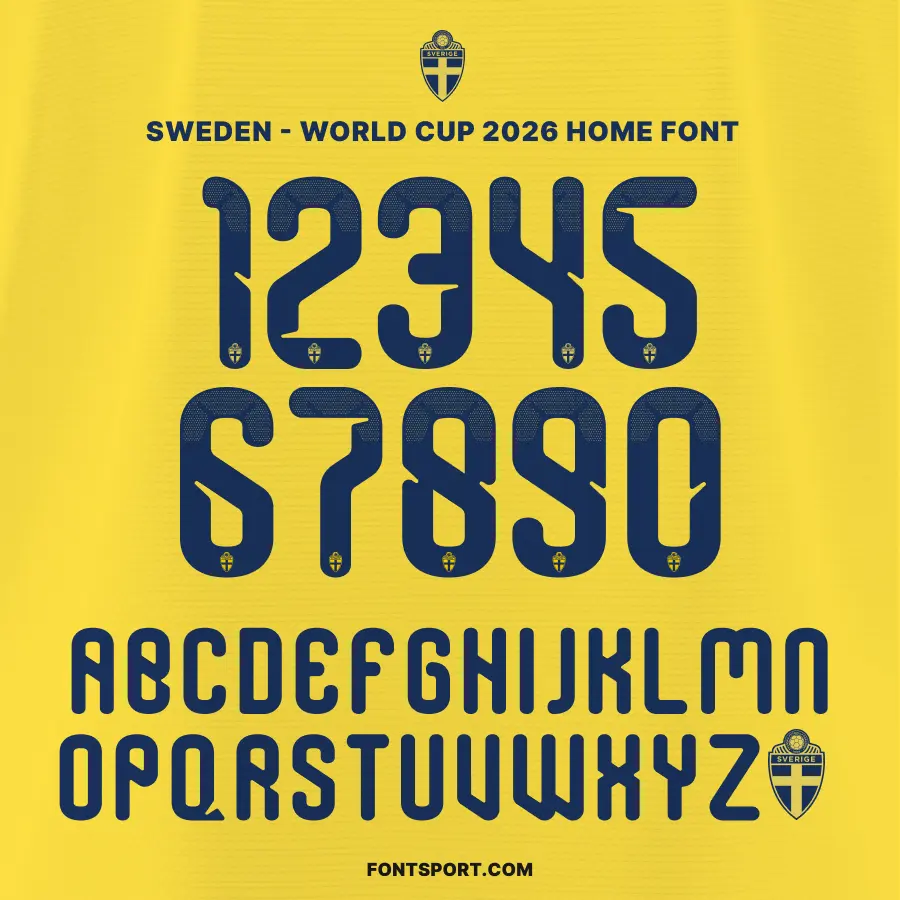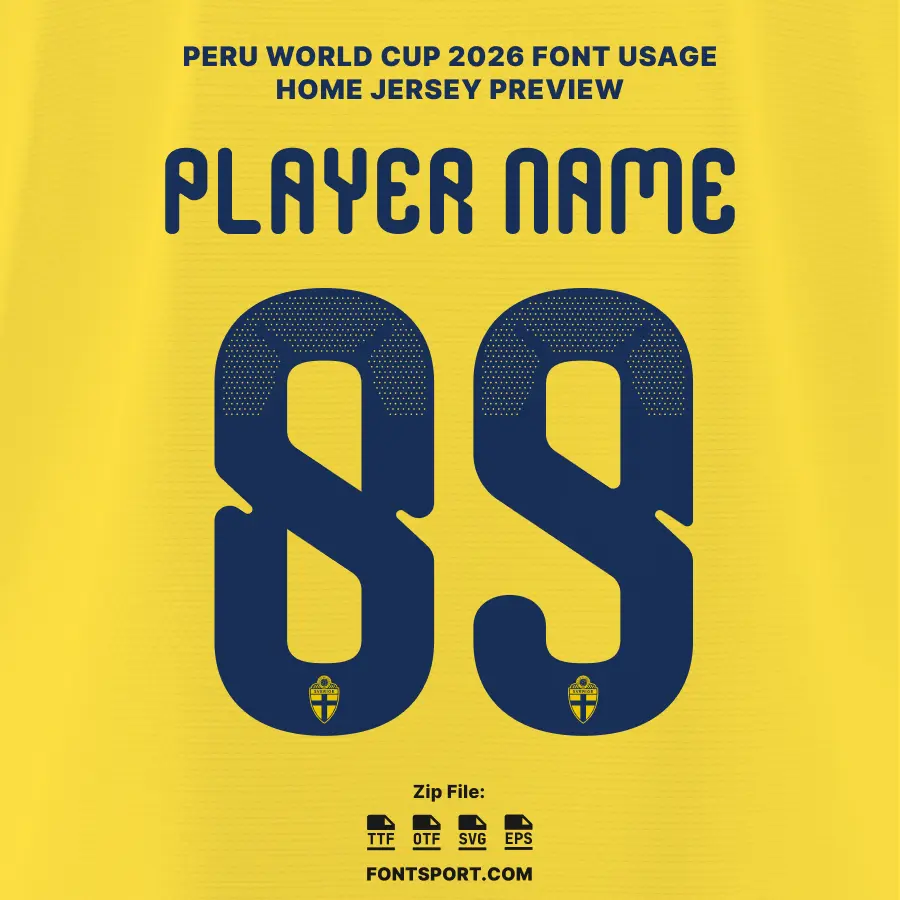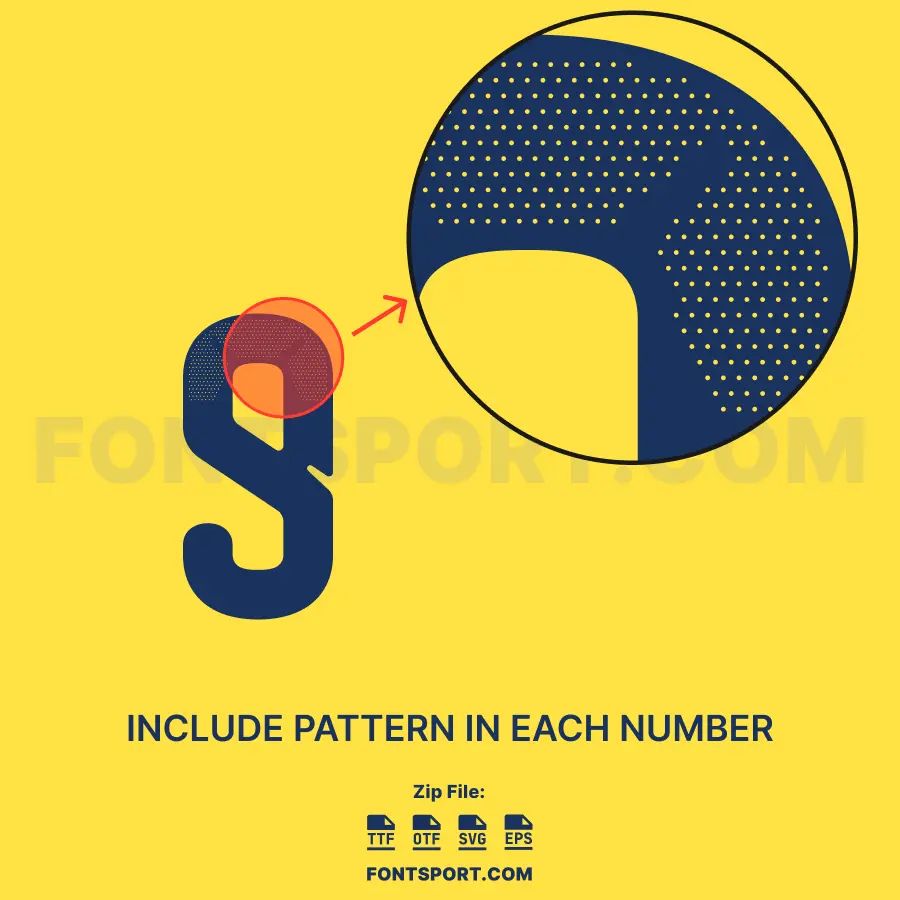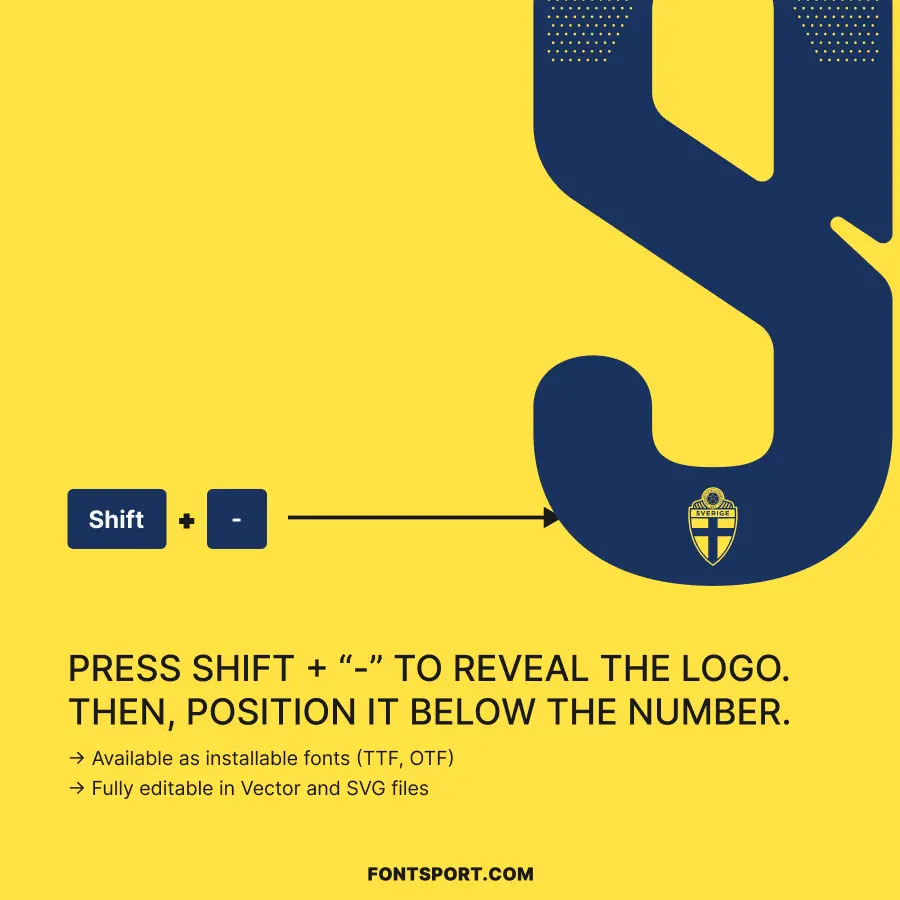
Channel Sweden’s National Team Energy into Your Designs
The Sweden World Cup Home 2026 Font Kit lets you bring the vibrant style of Sweden’s national team to your creative projects. This football font is inspired by the typography of their 2026 World Cup home jersey. It’s perfect for designing jerseys, fan merchandise, posters, and more.
• ✅ Full uppercase A–Z letters and 0–9 numbers
• Logo glyphs that reveal Sweden’s crest when you type
This font for jersey design is perfect for creating high‑impact visuals. It’s optimized for clarity, whether you’re designing jerseys, posters, or social media posts.
Whether you’re creating a custom jersey or fan poster, this font ensures your designs stand out. Moreover, the vector files keep your text crisp, no matter the size. Additionally, the logo glyphs save you time by eliminating the need for separate logo files. It’s efficient and convenient.
• New Home Kit Design: Sweden’s 2026 World Cup home kit features their iconic yellow base with blue and white accents. The design reflects a modern touch with retro elements and detailed embossing. It’s an exciting mix of heritage and future. source
These developments show Sweden’s commitment to innovation while staying true to their heritage, making this font kit perfect for showcasing that style in your designs.
5. The available characters include uppercase letters (for player names), and numbers (for player jersey numbers).
Sweden World Cup 2026 Home Font – Official jersey numbers and alphabet design, authentic Sweden font for FIFA World Cup 2026 kits.
Sweden World Cup Home 2026 Font Kit